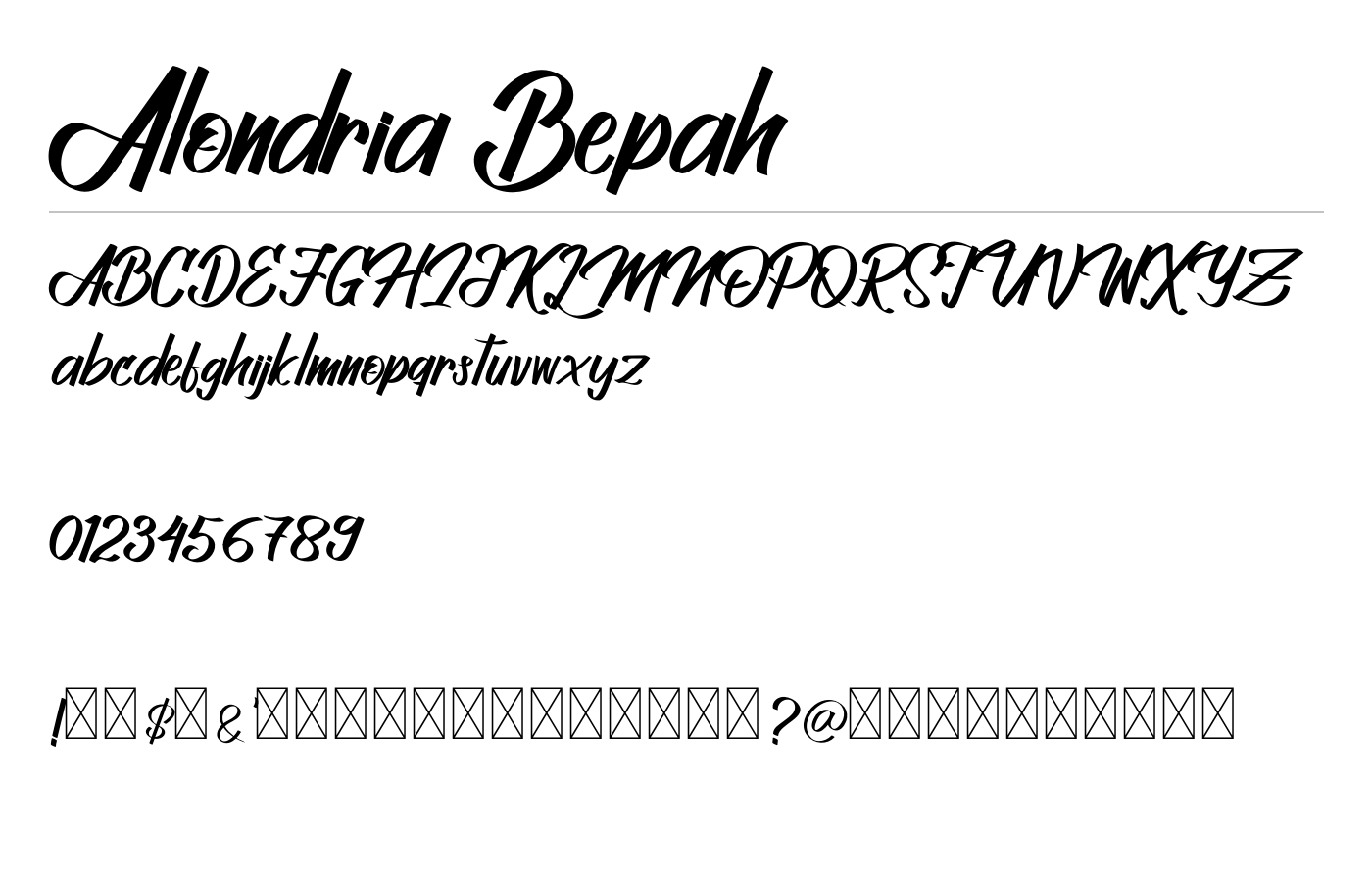
Alondria Bepah is a stylish script font with a dynamic, flowing design that combines bold strokes and elegant curves. It offers a modern yet sophisticated feel, making it ideal for eye-catching headlines, logos, and branding that seek to convey creativity and flair. This font works beautifully in fashion, invitations, and editorial use where a touch of personality and elegance is desired.
Alondria Bepah Font
About Alondria Bepah Font